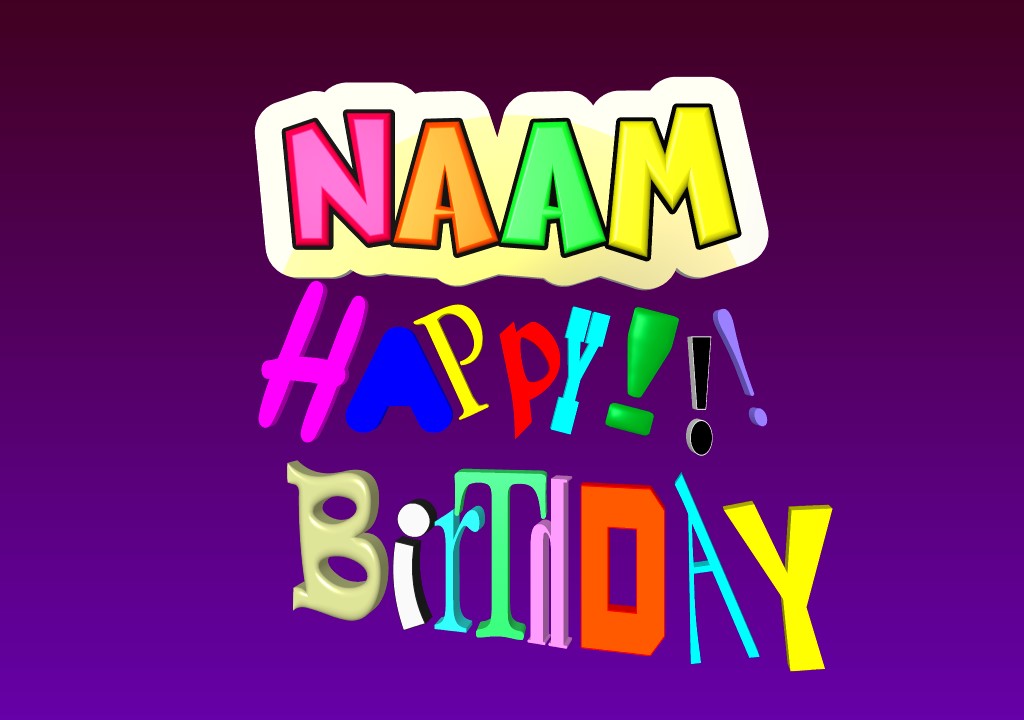
It would be a great feature to mix different fonts in one word or to mix different sized and formed letters of one font in a word.
Maybe there is a simple way to create something in BluffTitler without placing a word letter by letter. It's time consuming and when you want to add an effect you have to do it letter for letter.
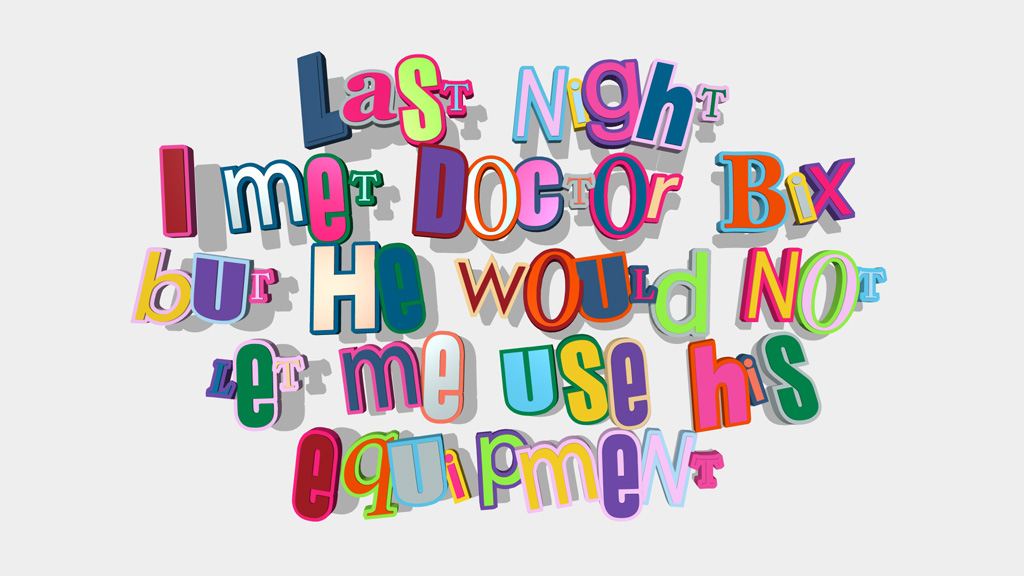
I would use the Text\RainbowText effect in combination with a Punk font like this one:
Michiel, I have applied the effect Rainbow text, to one text, but I can't get different colours to the characters, like you do in your show.
What am I doing wrong ?
Snafu, the colours are taken from the 1st texture. Choose MEDIA > CHANGE TEXTURE... and select a texture.
Great tips. I'm very bad with always using standard fonts. I feel this has been a mistake.